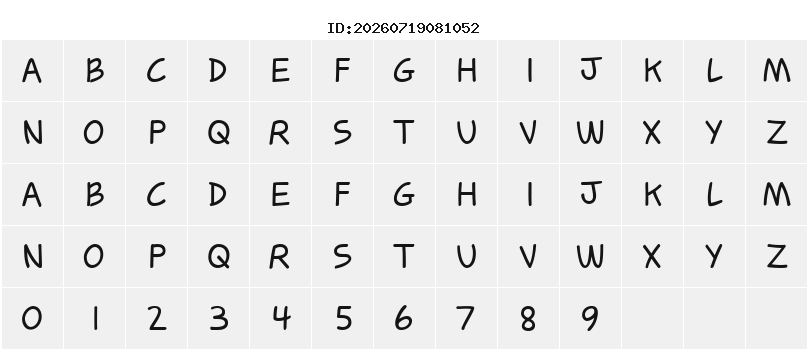
• Designer: Zoya Feldman
About Cometbus.ttf
Cometbus.ttf is a modern, elegant sans-serif font designed for ultimate readability and visual harmony. Perfect for branding, headlines, web design, and print materials.